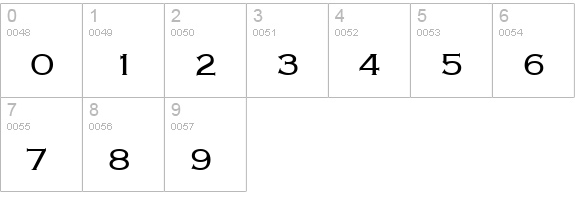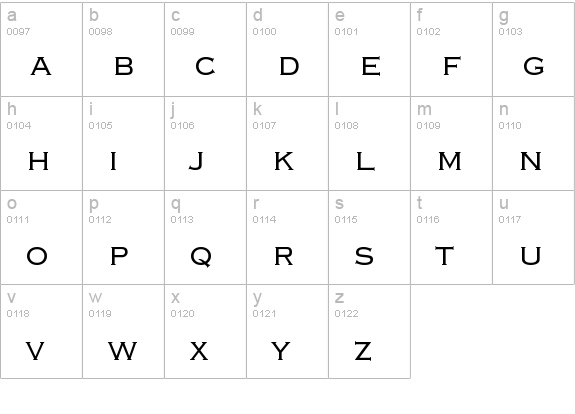
Copperplate Light SSi Light Font Details
Copperplate Light SSi Light is a refined, elegant variant in the Copperplate typeface family \xE2\x80\x94 well suited to elegant body text, refined sub-headings, and luxury branding.
Copperplate Light SSi Light font is a timeless and elegant typeface that exudes sophistication and refinement. With its delicate strokes and classic design, this font is perfect for creating a sense of luxury and style in your projects. The light weight of the font adds a touch of grace and subtlety to any text, making it ideal for use in invitations, branding, and editorial designs. The best part is that Copperplate Light SSi Light font is available for free download at FontsMarket.com. This means you can easily access this beautiful font and use it in your designs without any cost. Don't miss out on the opportunity to enhance your projects with the timeless charm of Copperplate Light SSi Light font - download it for free today!